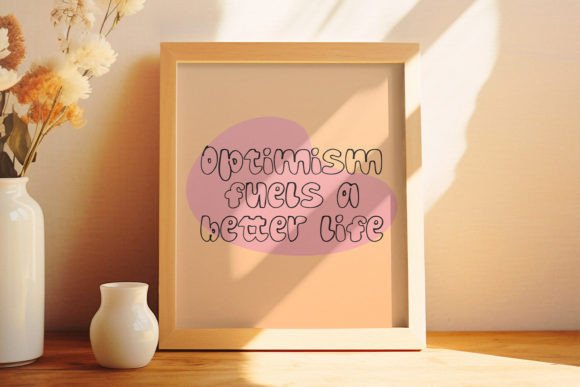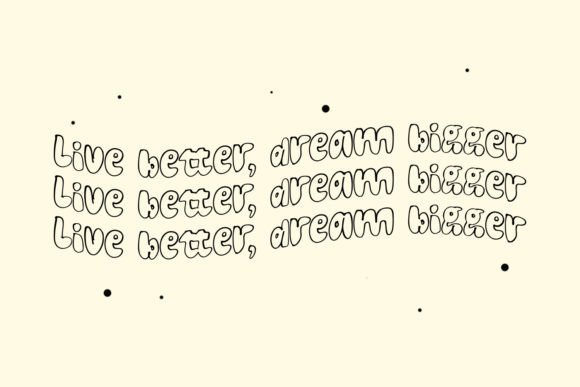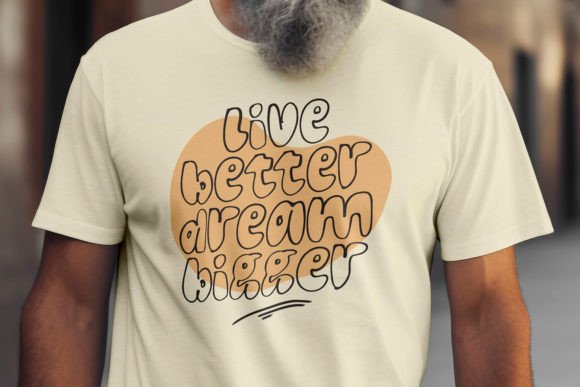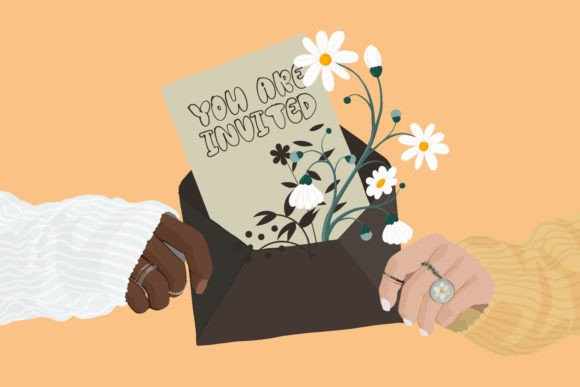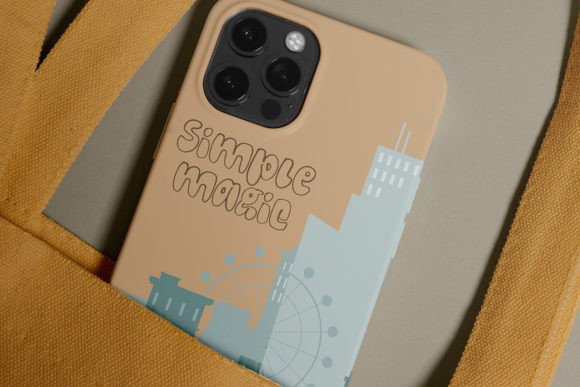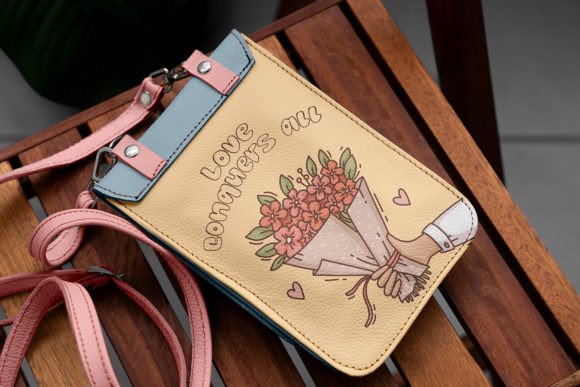
Brimming Joy Font: A Delightful Display Font for Your Creative Projects
Are you looking for a font that can add a touch of warmth and friendliness to your designs? Look no further than Brimming Joy, a delightful display font that radiates joy and positivity. In this article, we’ll take a closer look at the features and benefits of Brimming Joy, and explore how it can elevate your creative projects.
The Design of Brimming Joy
Brimming Joy is meticulously designed with rounded shapes that give it a friendly and approachable quality. Each letter is carefully crafted to create a sense of warmth and invitation, making it perfect for designs that require a personal touch. The font’s thick weight gives it a bold and vibrant presence, while its low contrast ensures clarity and legibility in any size.
What Sets Brimming Joy Apart
So, what makes Brimming Joy stand out from other fonts? The answer lies in its playful style, which adds a sense of whimsy and charm to the font. Brimming Joy is not just a font – it’s an experience. It’s a way to add a dash of personality and fun to your designs, and to connect with your audience on a more personal level.
Features and Benefits of Brimming Joy
Here are just some of the features and benefits of using Brimming Joy in your creative projects:
- Rounded shapes: Brimming Joy’s rounded shapes give it a friendly and approachable quality that’s perfect for designs that require a personal touch.
- Thick weight: The font’s thick weight gives it a bold and vibrant presence that’s sure to grab attention.
- Low contrast: Brimming Joy’s low contrast ensures clarity and legibility in any size, making it perfect for use in a variety of applications.
- Playful style: The font’s playful style adds a sense of whimsy and charm to your designs, making them more engaging and memorable.
Using Brimming Joy in Your Designs
Brimming Joy is a versatile font that can be used in a variety of creative projects, including:
- Logos and branding: Brimming Joy’s friendly and approachable quality makes it perfect for logos and branding projects that require a personal touch.
- Headings and titles: The font’s bold and vibrant presence makes it ideal for use in headings and titles that need to grab attention.
- Signage and displays: Brimming Joy’s thick weight and low contrast make it perfect for use in signage and displays that need to be clear and legible.
- Digital and print media: The font’s playful style and charming quality make it perfect for use in digital and print media, including social media graphics, flyers, and brochures.
Tips for Getting the Most Out of Brimming Joy
Here are a few tips for getting the most out of Brimming Joy:
- Experiment with different sizes: Brimming Joy’s low contrast and clear design make it perfect for use in a variety of sizes, from large headings to smaller body text.
- Pair it with other fonts: Brimming Joy’s playful style and charming quality make it a great font to pair with other fonts that have a more serious or elegant feel.
- Use it consistently: To get the most out of Brimming Joy, use it consistently throughout your design project. This will help to create a cohesive and recognizable brand identity.
Brimming Joy is a delightful display font that’s perfect for designers and crafters who want to add a touch of warmth and friendliness to their creative projects. With its rounded shapes, thick weight, and low contrast, Brimming Joy is a versatile font that can be used in a variety of applications. Whether you’re working on a logo, heading, or signage project, Brimming Joy is sure to bring a sense of joy and positivity to your designs.